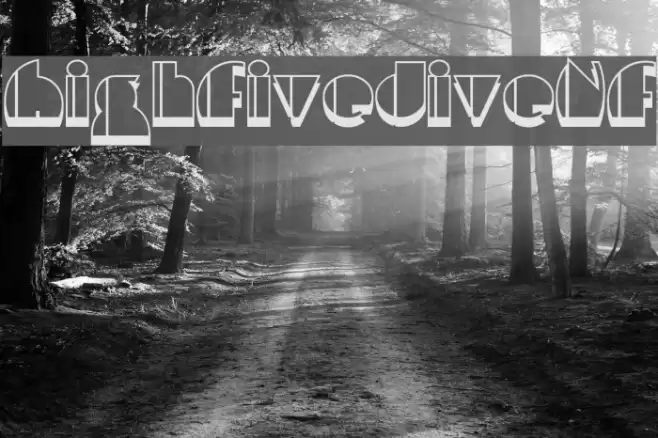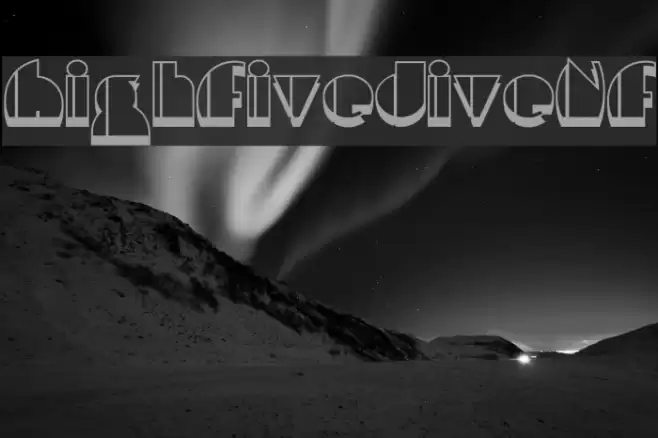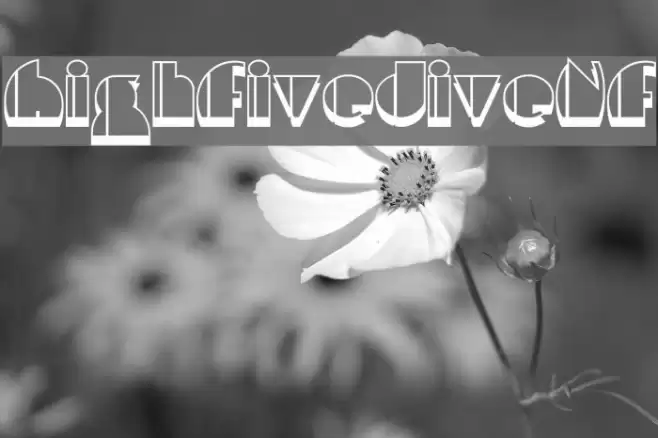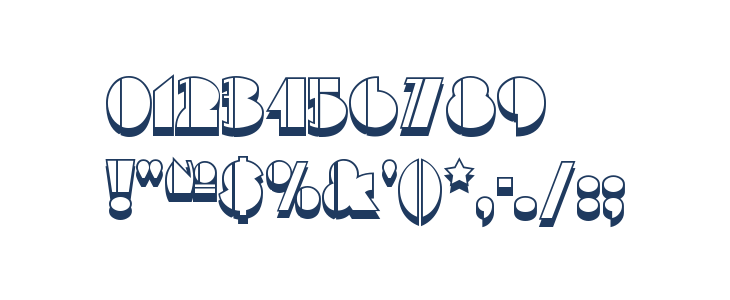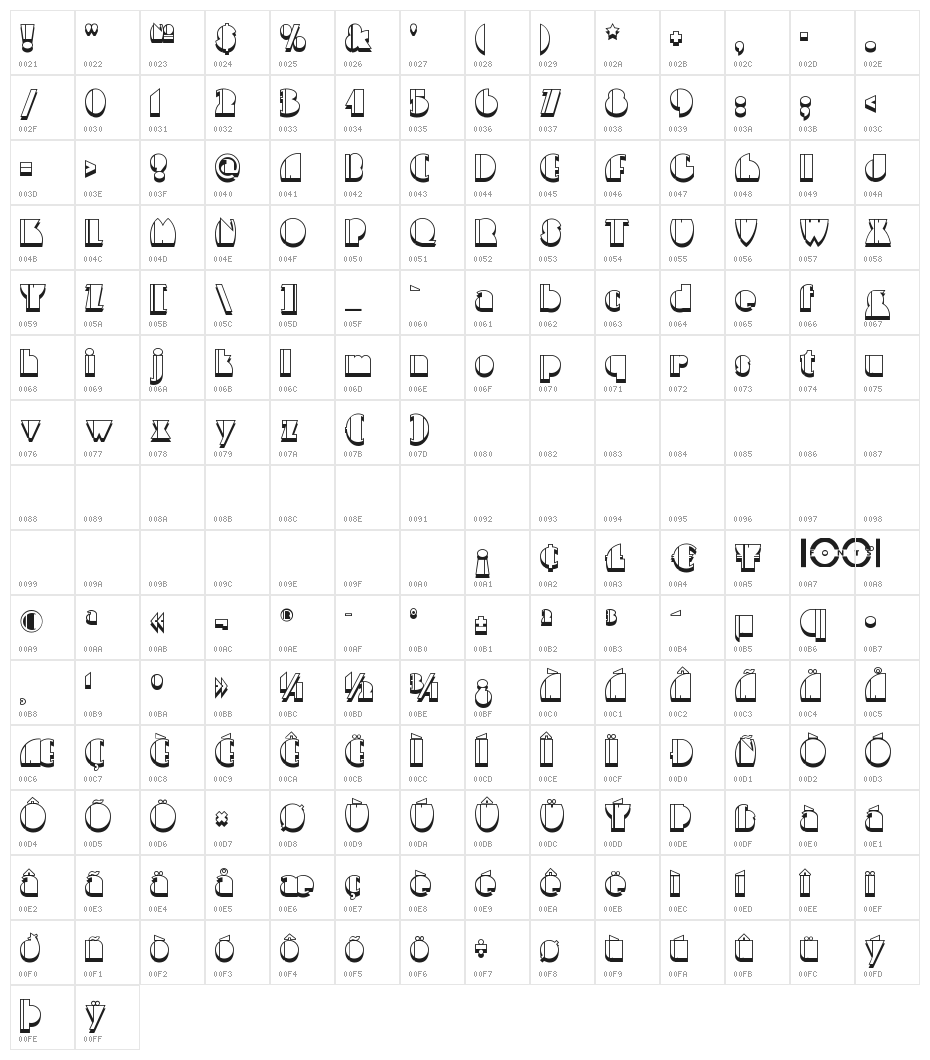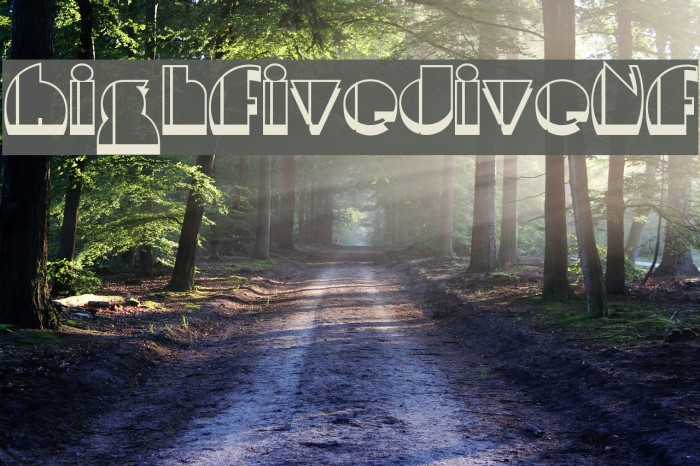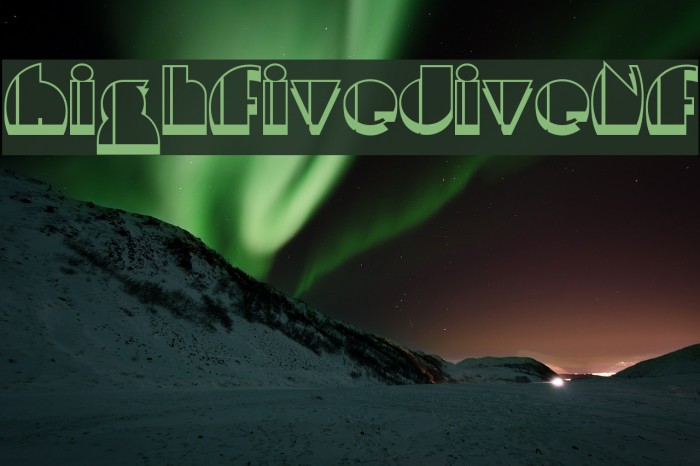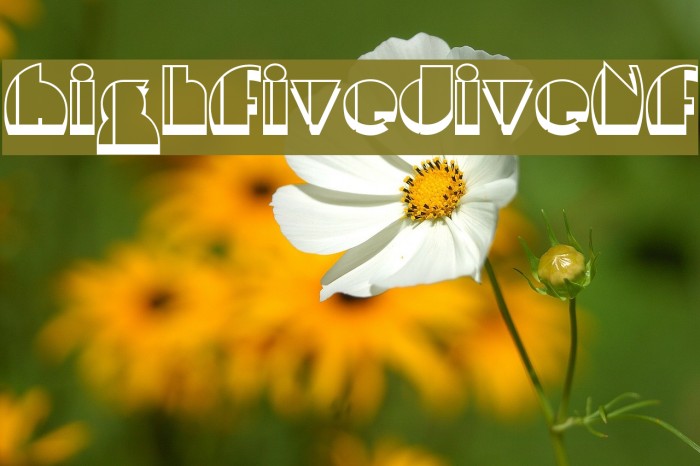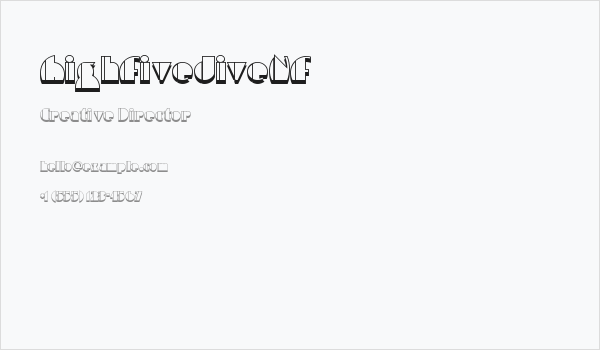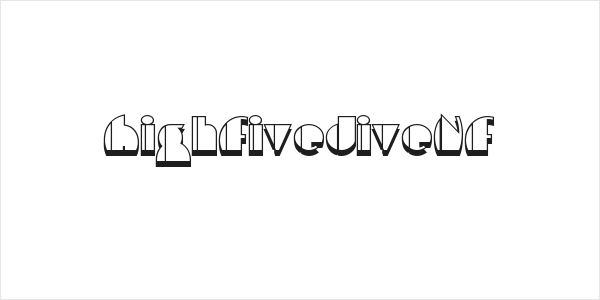
HighFiveJiveNF Font
HighFiveJiveNF Description
This font features a bold, geometric style with a strong 3D effect, achieved through the use of shadows and highlights. The characters are constructed with thick lines and sharp angles, giving them a modern and dynamic appearance. The uppercase and lowercase letters maintain a consistent design, with a playful yet structured look. Numbers and special characters follow the same aesthetic, ensuring uniformity across all glyphs. The font's unique style makes it stand out, ideal for projects that require a bold statement.
A bold, geometric font with a 3D shadow effect, perfect for eye-catching designs from Uncategorized fonts.
- Proposed Projects: Ideal for posters, logos, headlines, and any design that requires a bold, modern touch.